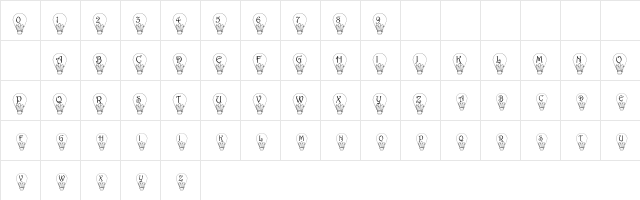
pf_hot_air_balloon Regular
Design Context for pf_hot_air_balloon Typeface
pf_hot_air_balloon is a composed and adaptable typeface that performs quietly and consistently across a wide range of design contexts.